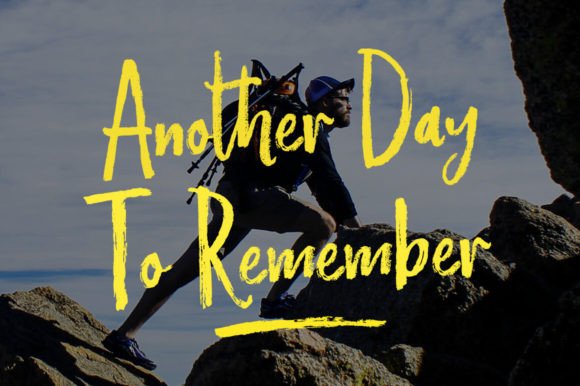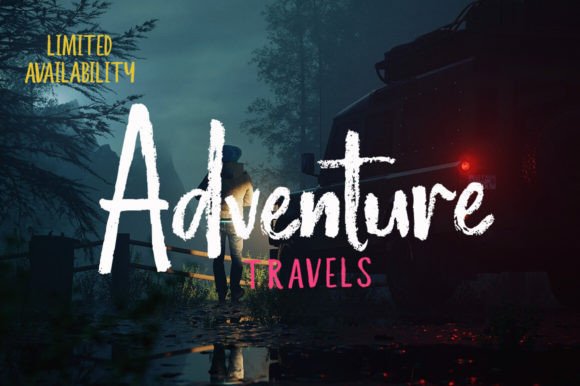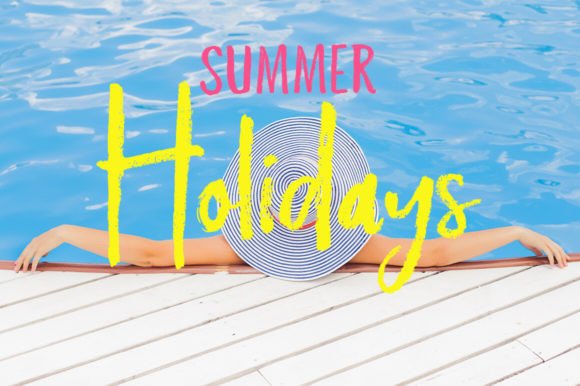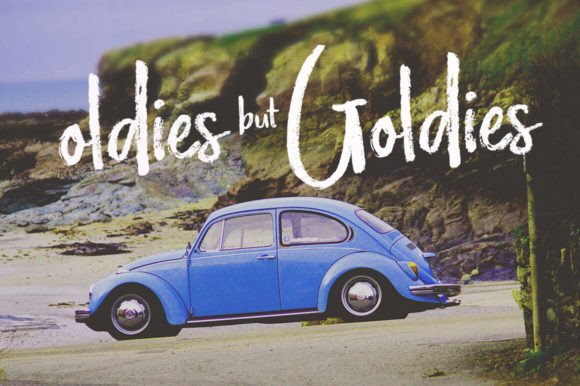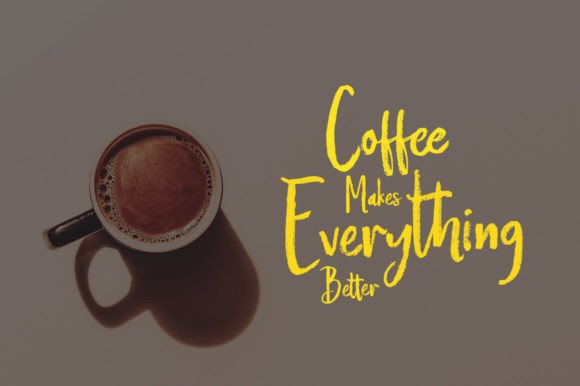
Introduction to Merfidost Font
Hi, Introducing the latest styles Merfidost Font Duo with the kind of modern hand scratches, I hope you are interested in this font, if you want to use for your work this font can be used easily and simply because there are a lot of features in it to contain a complete set of letters lower and uppercase letters, assorted punctuation, numbers, and multilingual support.
font also contains several ligatures and alternate style Stylistic .
Key Features of Merfidost Font